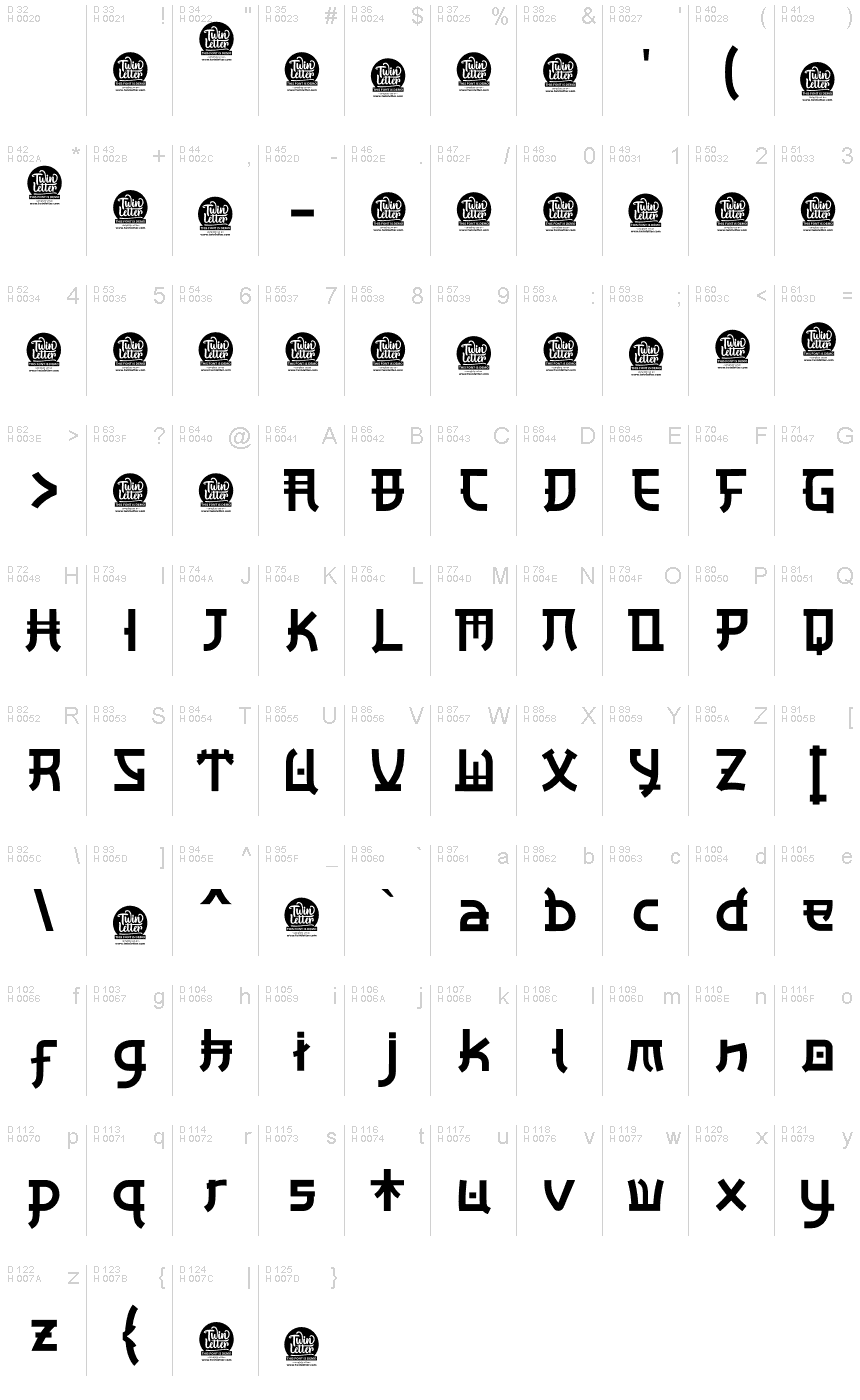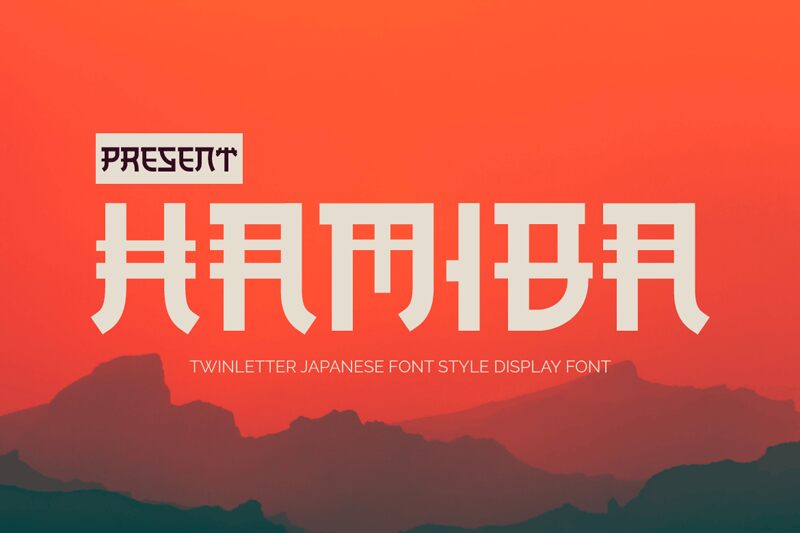
Discover Ziyad's stunning Japanese-style font, HAMIBA! Perfect for any project requiring an authentic touch of Japanese culture, such as logo design, t-shirts, traditional art pieces and more.